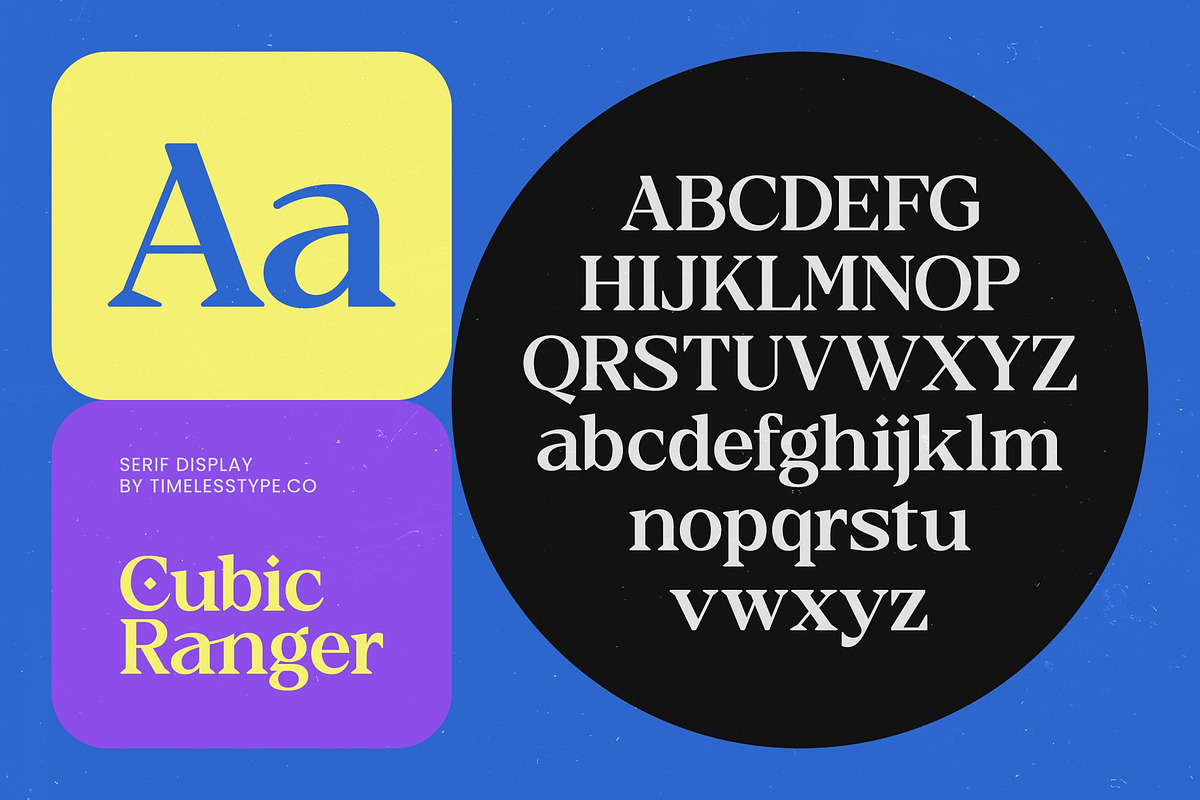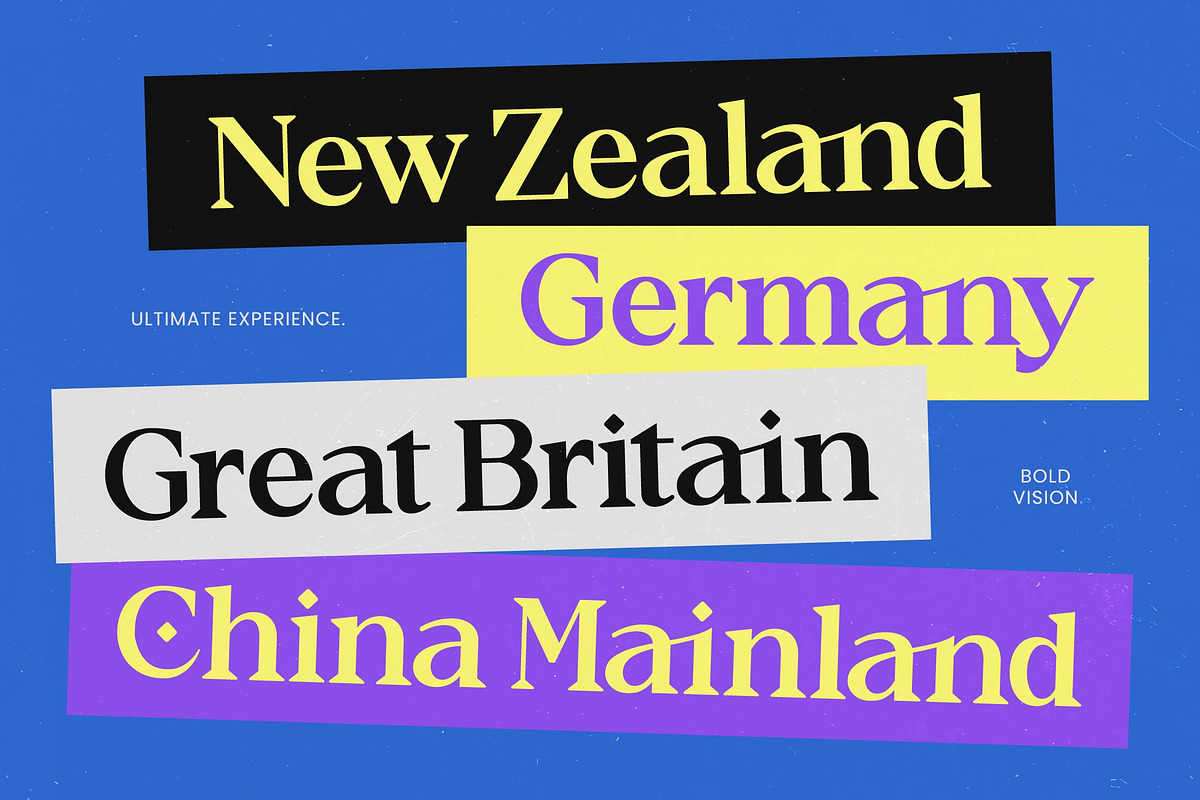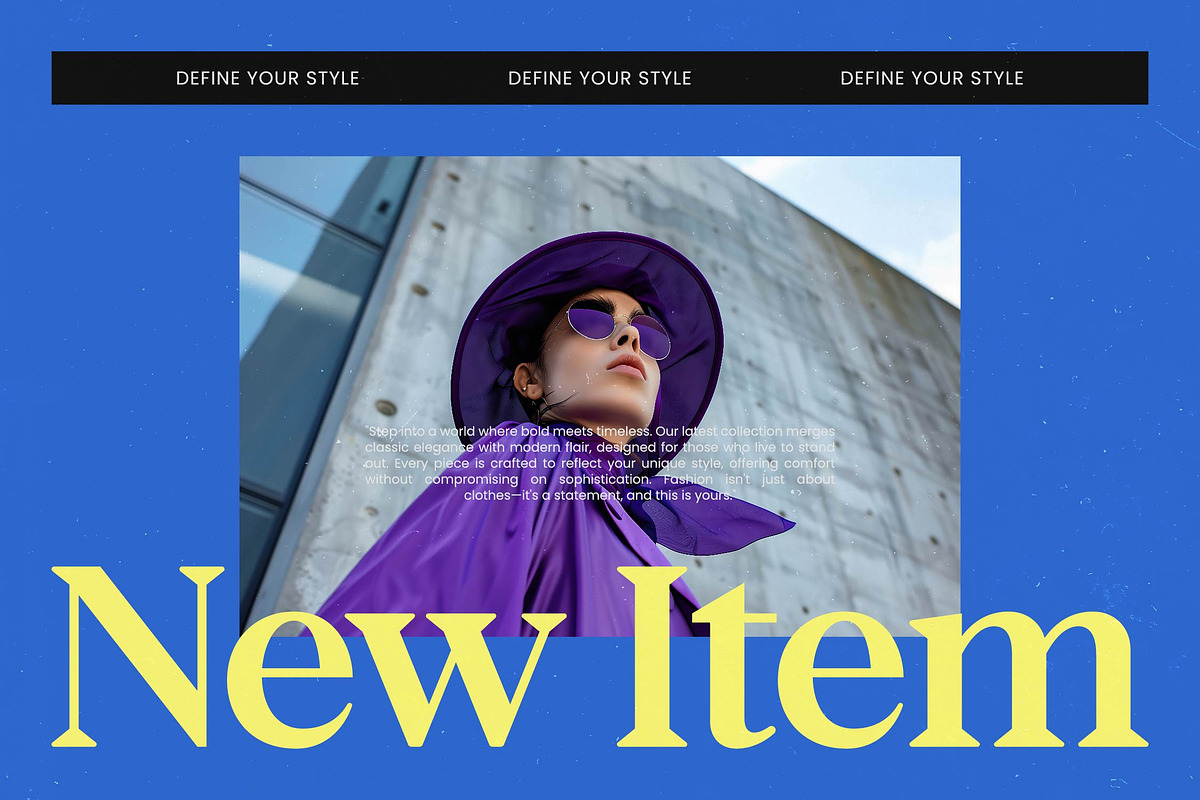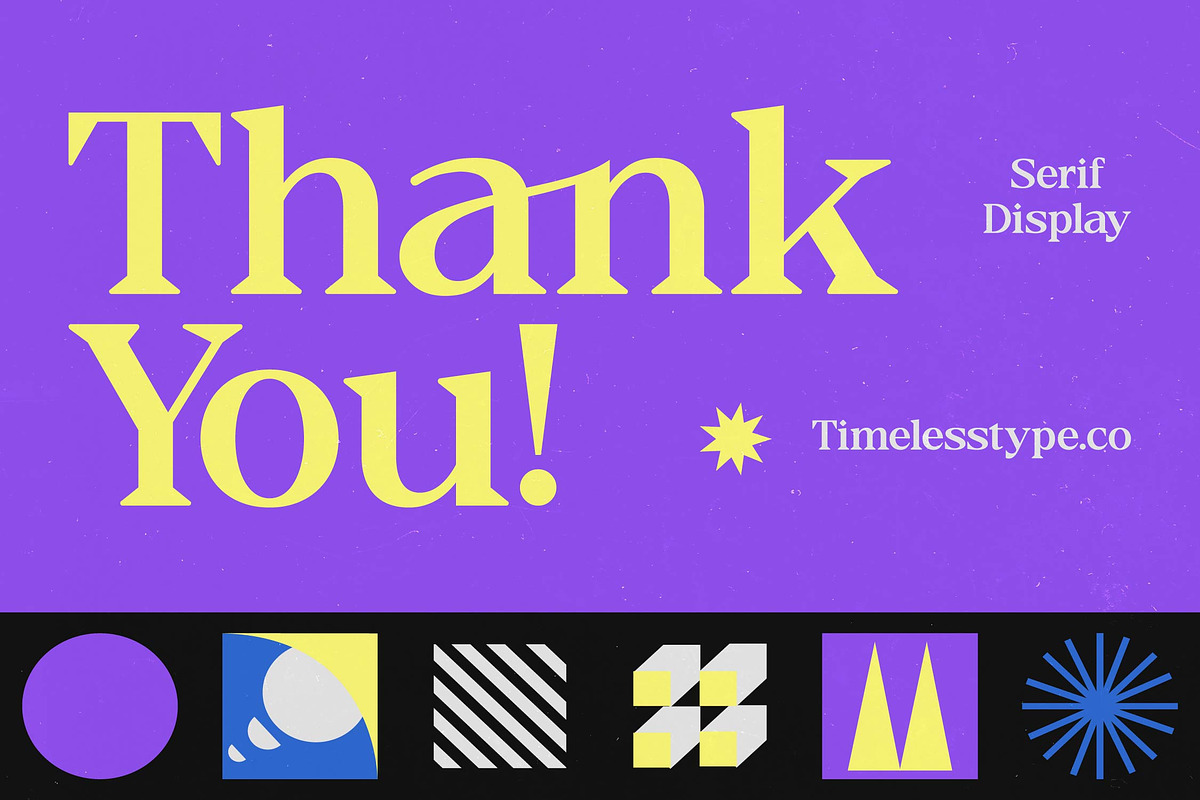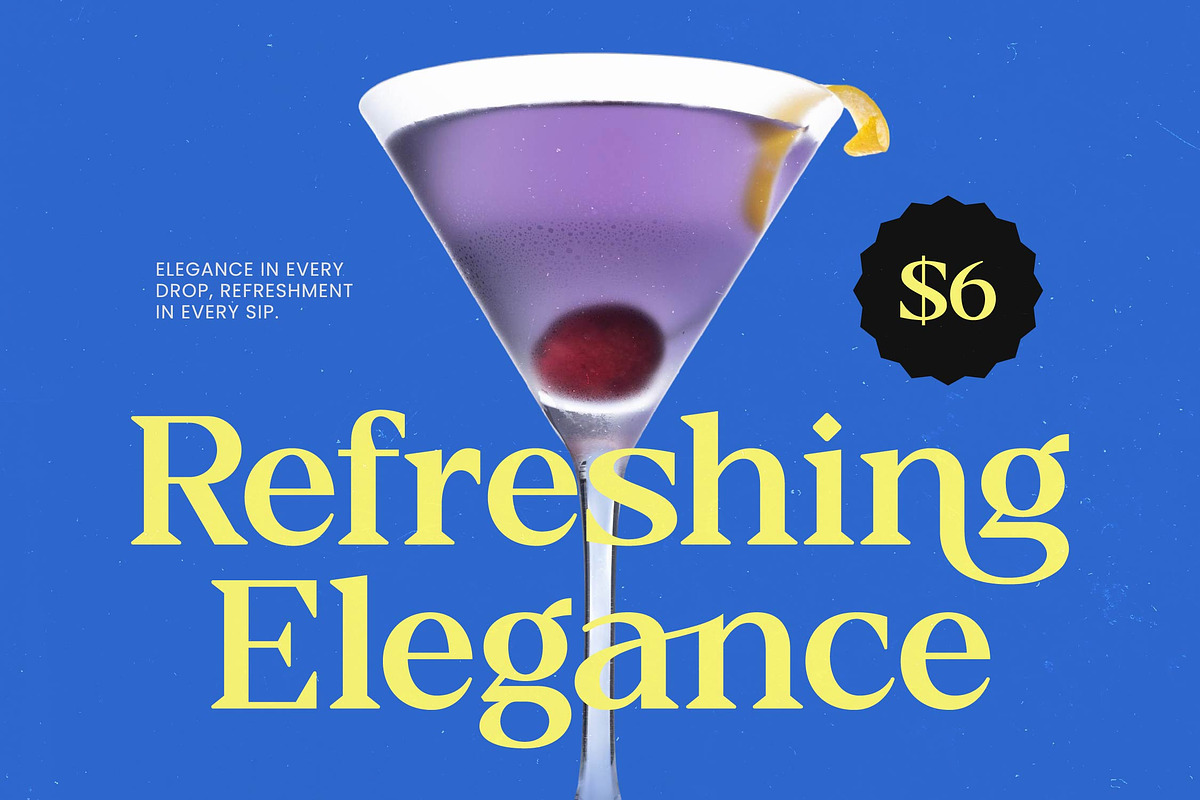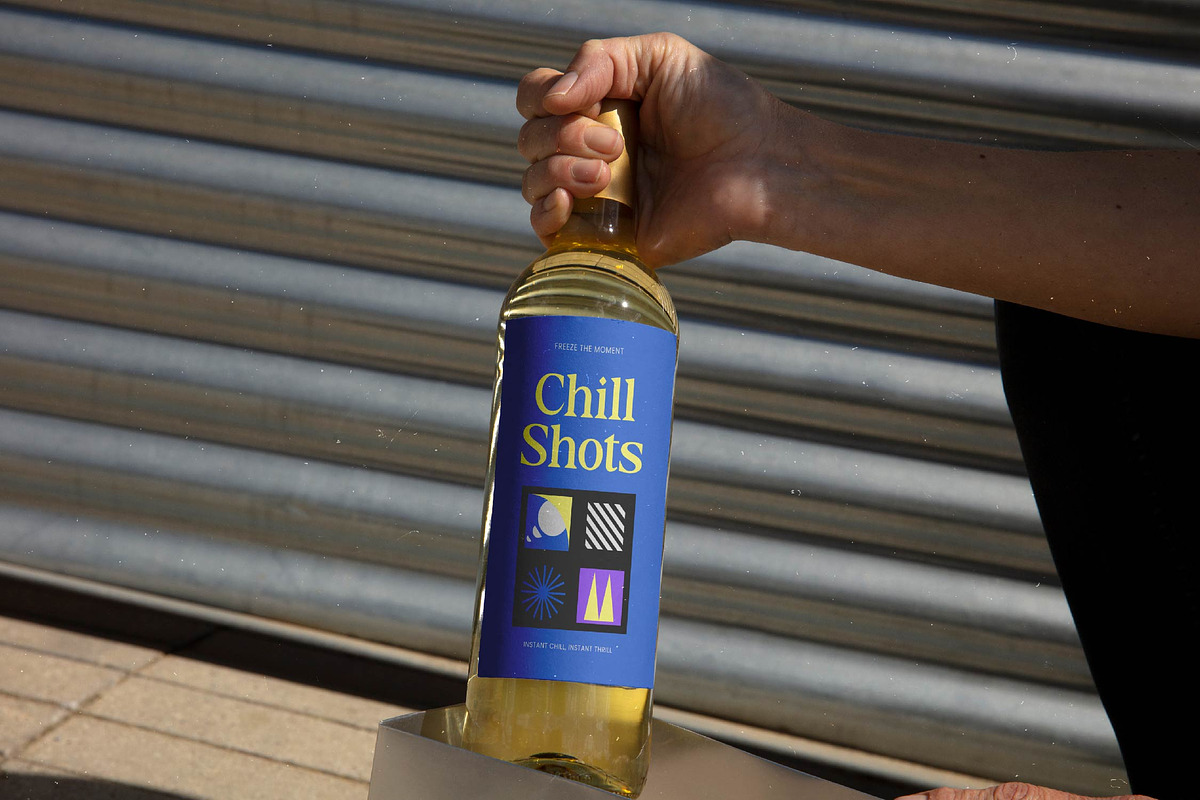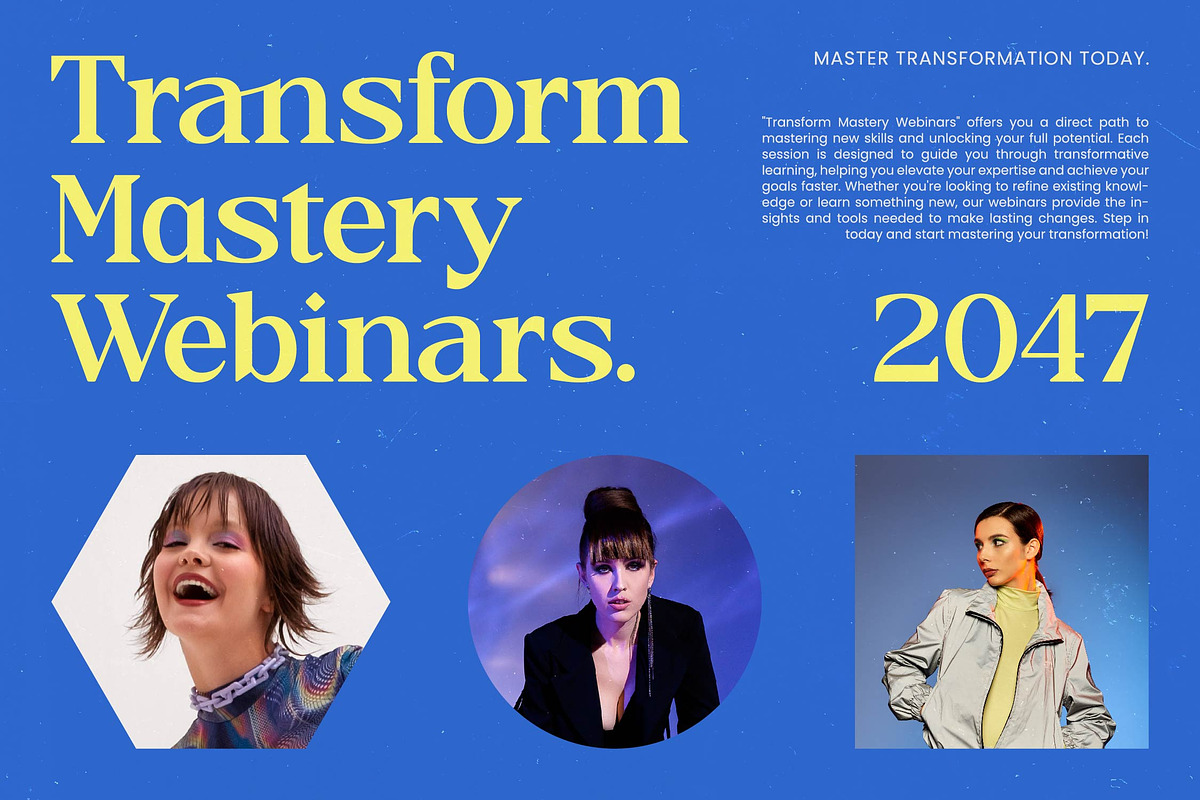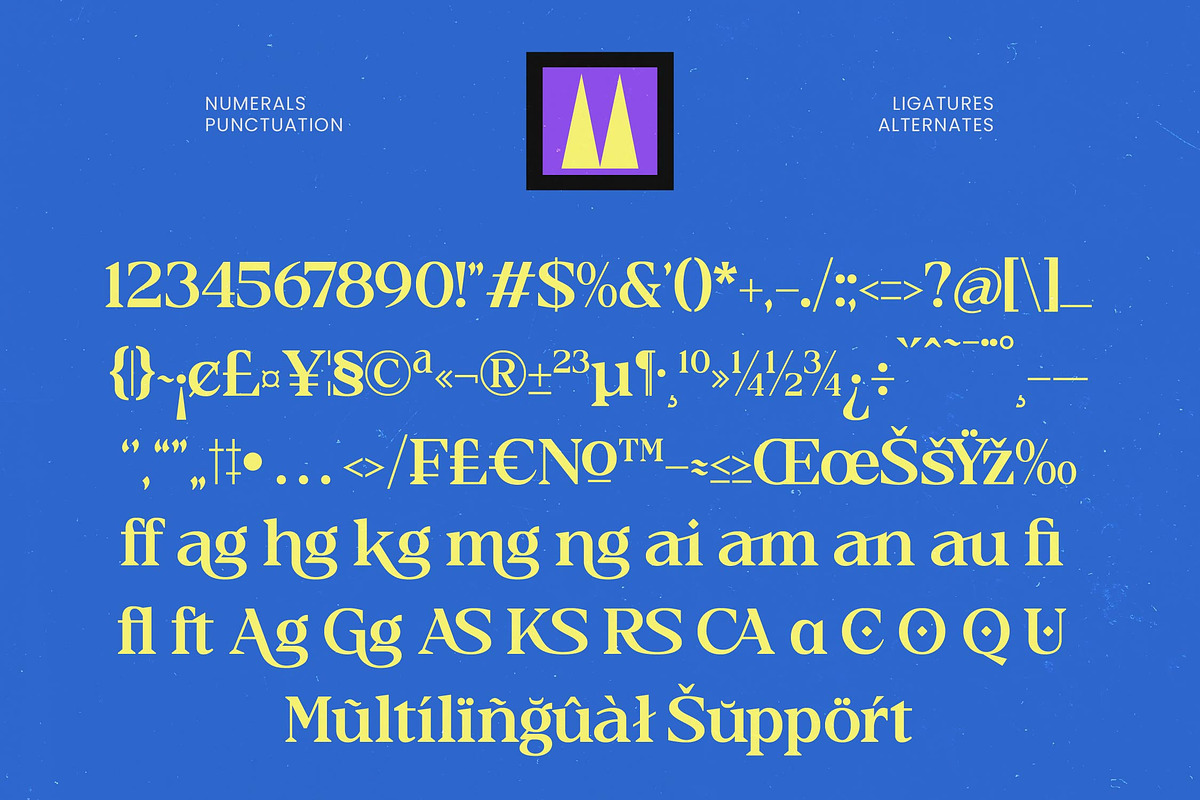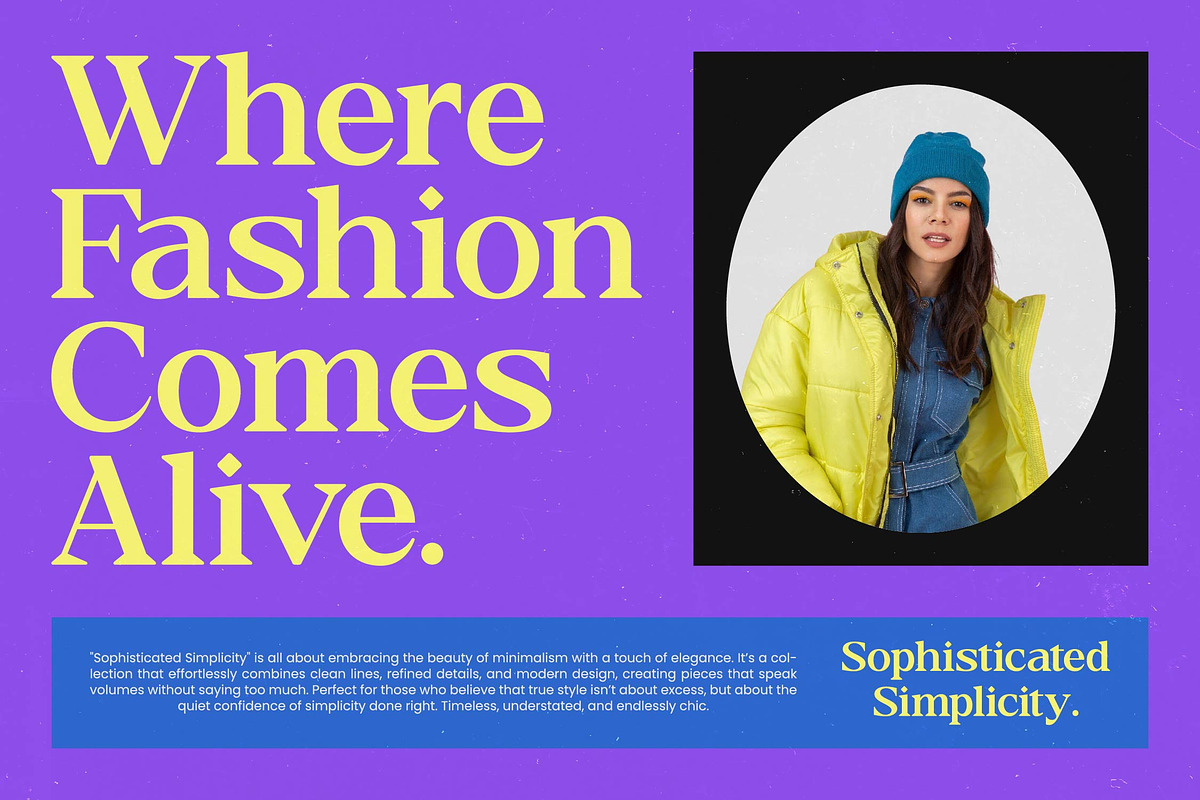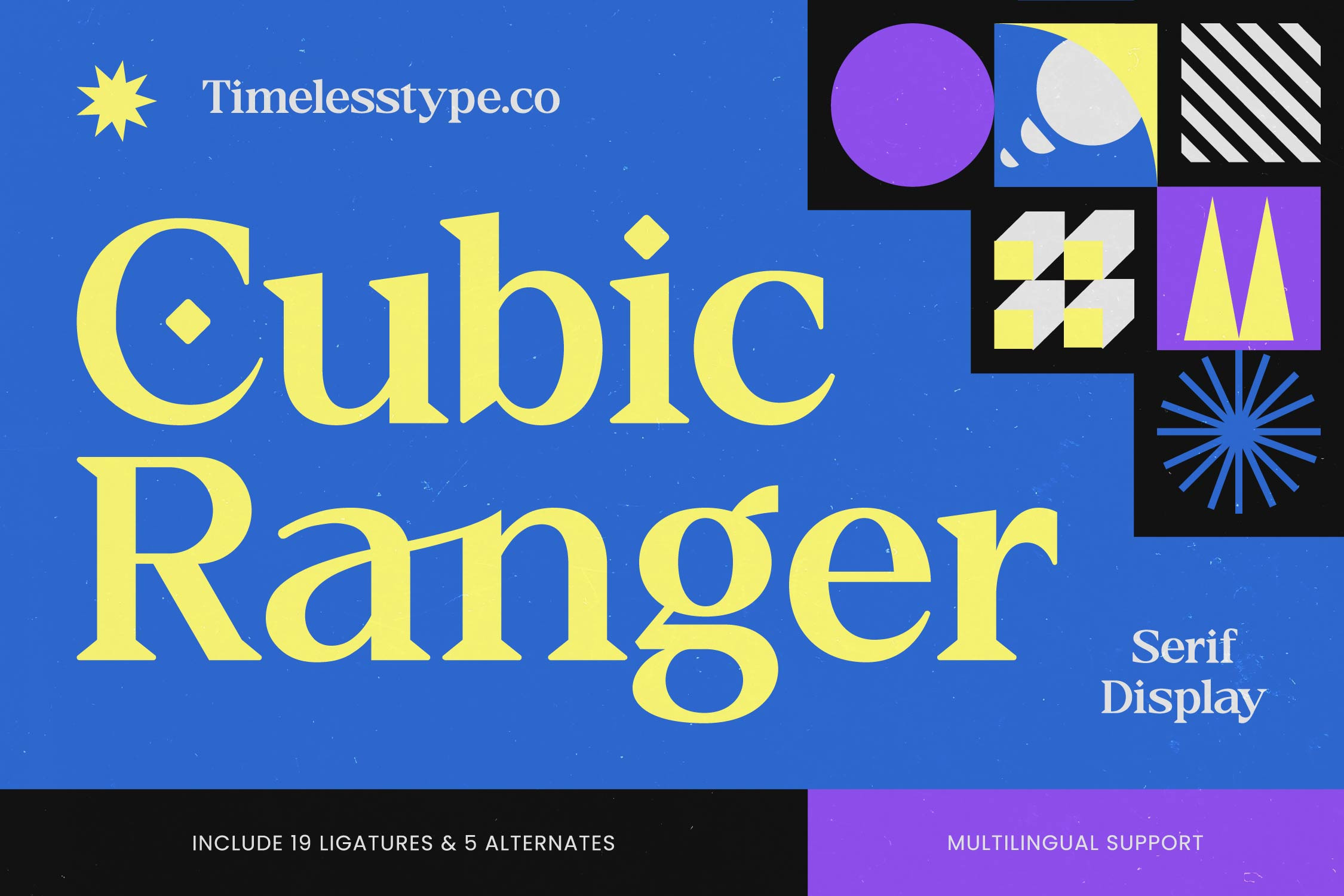
Cubic Ranger Serif Display Font
Cubic Ranger – Serif Display Font , Redefine modern elegance with a typeface that bridges the gap between classic tradition and contemporary flair. Cubic Ranger – Serif Display Font is a masterclass in sophisticated typography, blending high-contrast strokes with organic, rounded forms. Its bold visual presence ensures that every character commands attention, making it an essential tool for designers seeking to create a timeless aesthetic. The font’s unique balance of sharp serifs and soft curves provides a dynamic rhythmic flow that is both legible and artistically expressive.
Experience unparalleled flexibility in your creative workflow with advanced typographic features. This typeface is engineered for professional-grade performance, featuring 19 custom ligatures and 5 stylistic alternates that allow for bespoke design compositions. With its extensive multilingual support, Cubic Ranger – Serif Display Font adapts seamlessly across global markets, making it incredibly versatile for international projects. Whether you are targeting a local boutique or a global audience, this modern serif ensures your brand message remains consistent and impactful.
Elevate your brand identity with a font perfectly curated for high-end visual communication. When it comes to luxury branding and premium packaging, Cubic Ranger – Serif Display Font is the ultimate choice for achieving a high-end look. It is perfect for high-fashion editorial design, upscale cosmetics packaging, and sophisticated logo design. The font also excels in headline typography for digital lifestyle magazines and web headers where a touch of classic refinement is required to engage a discerning audience.